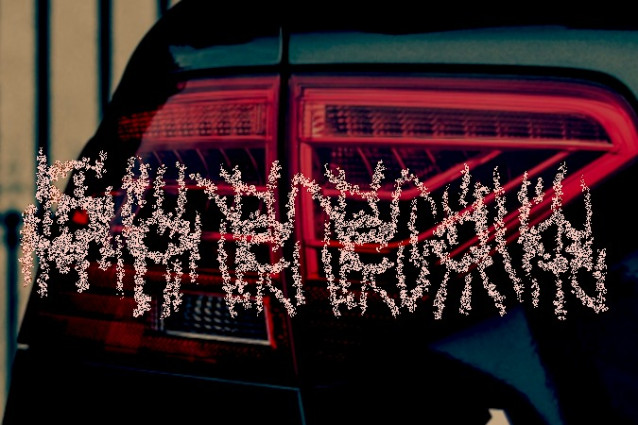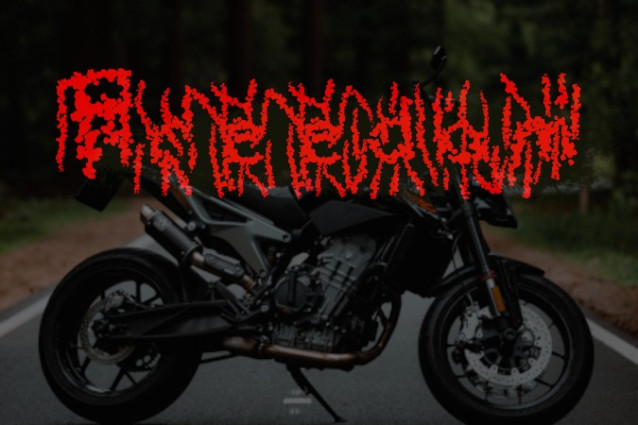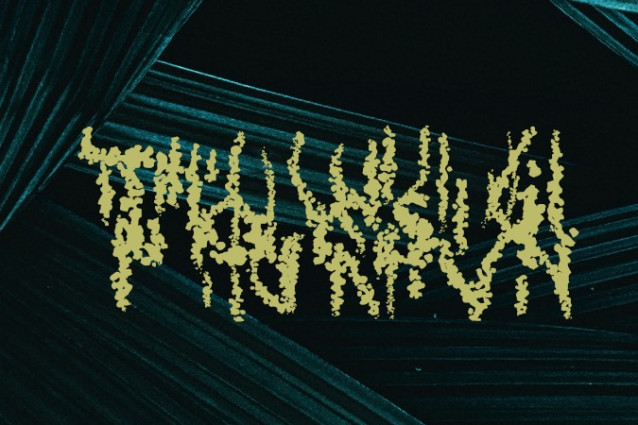
Torsi Heavy Metal Font
Torsi Heavy Metal Font is suitable for hardcore design project. Perfectly fit for branding, logo, wedding things, greeting cards, fashion, lookbook, marketing promotion, anytime you want to look fancy elegant but still casual.